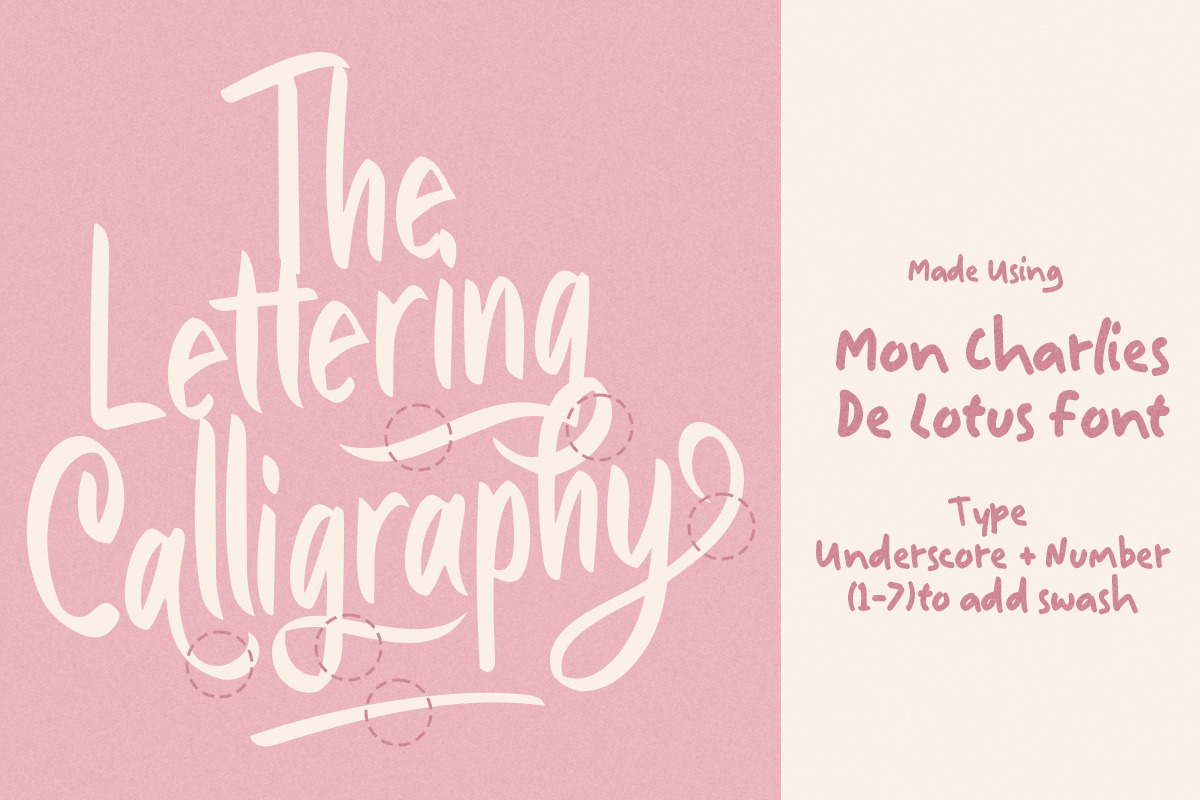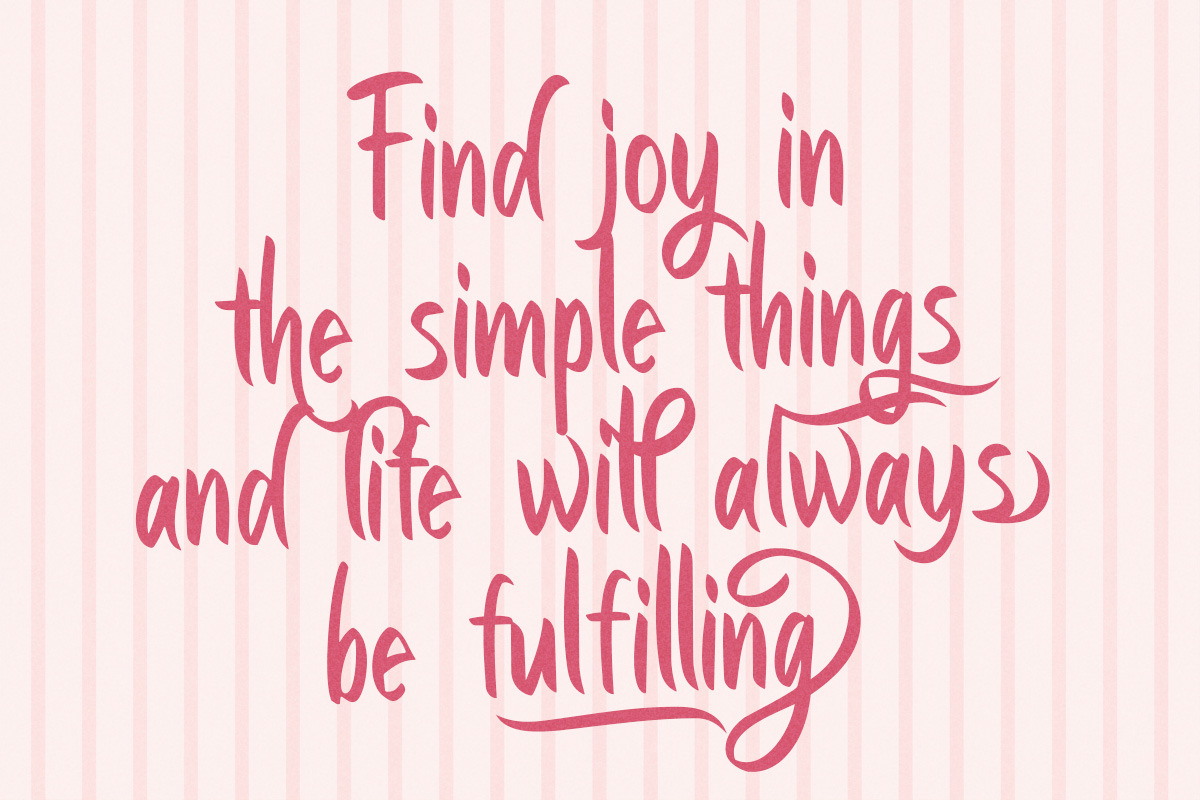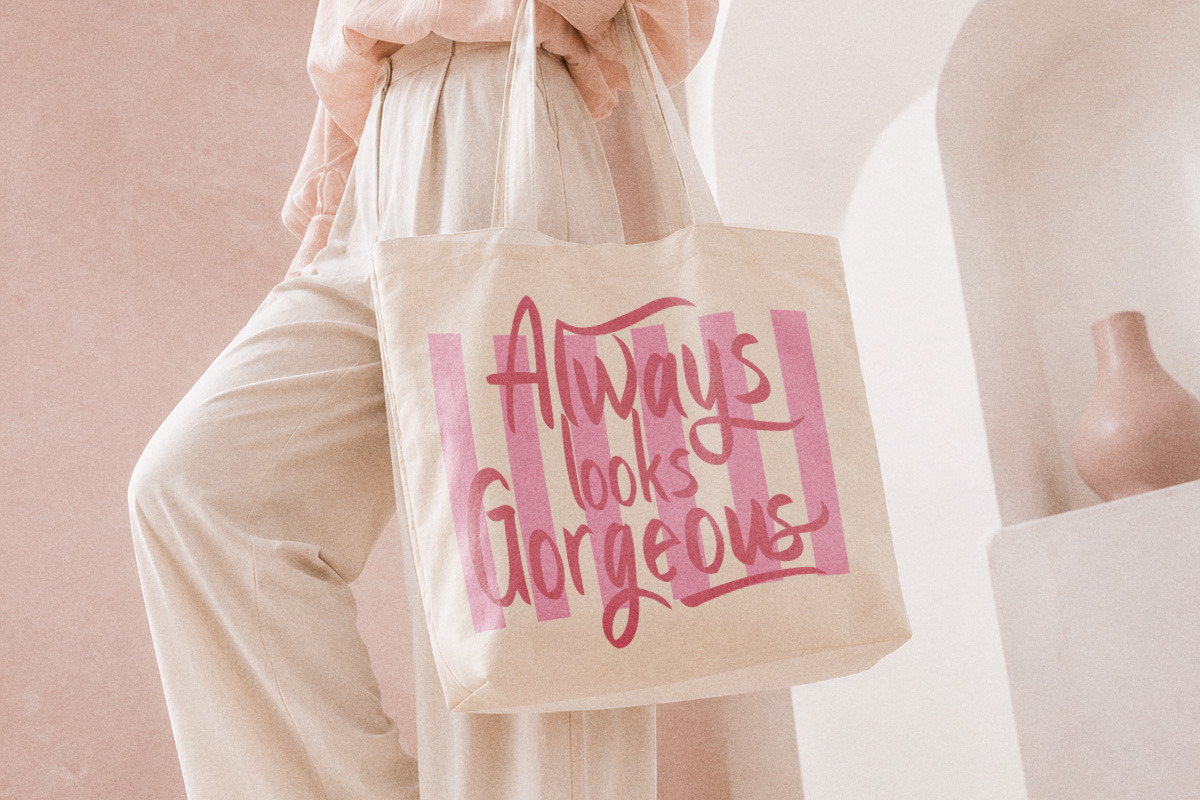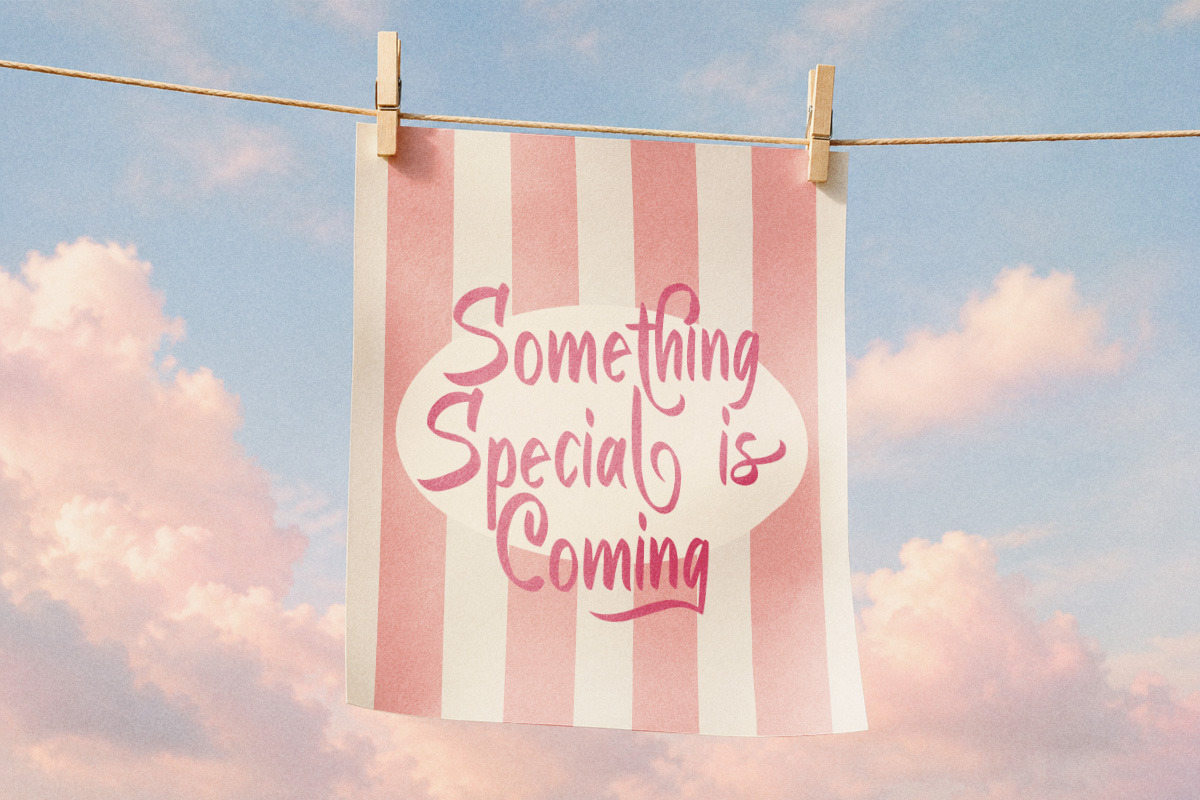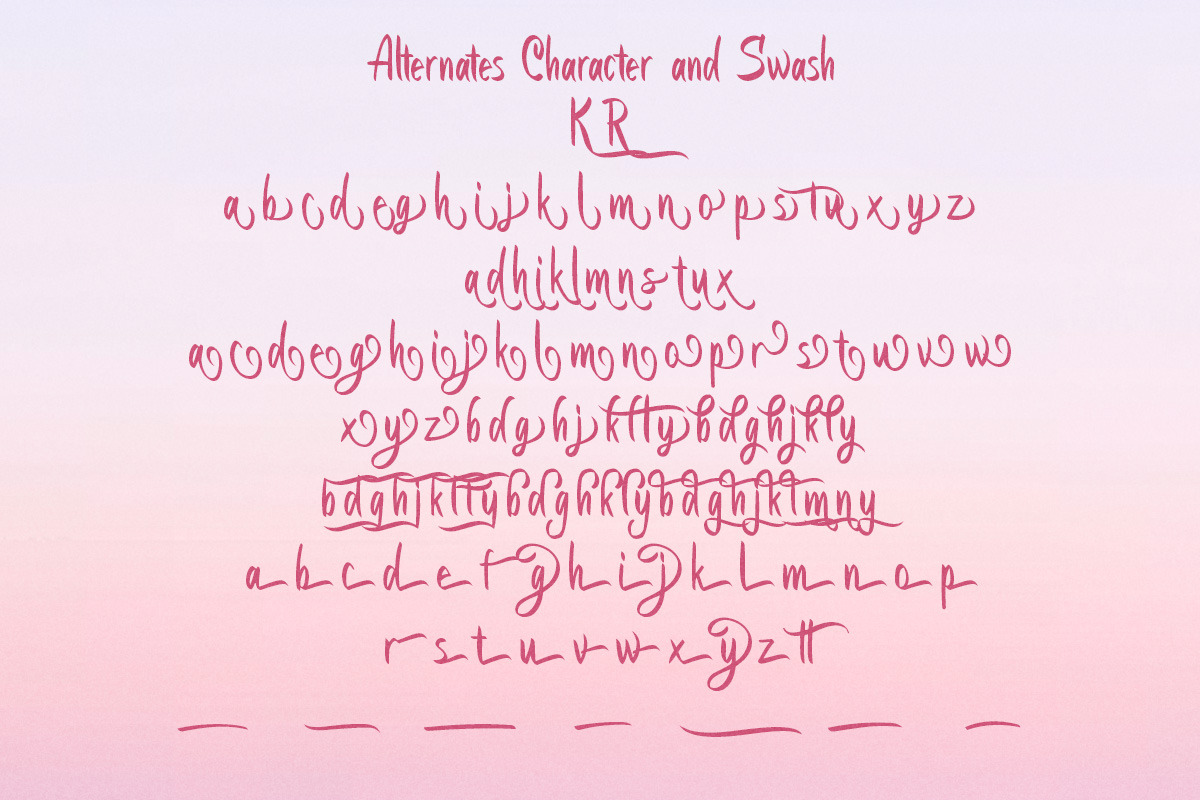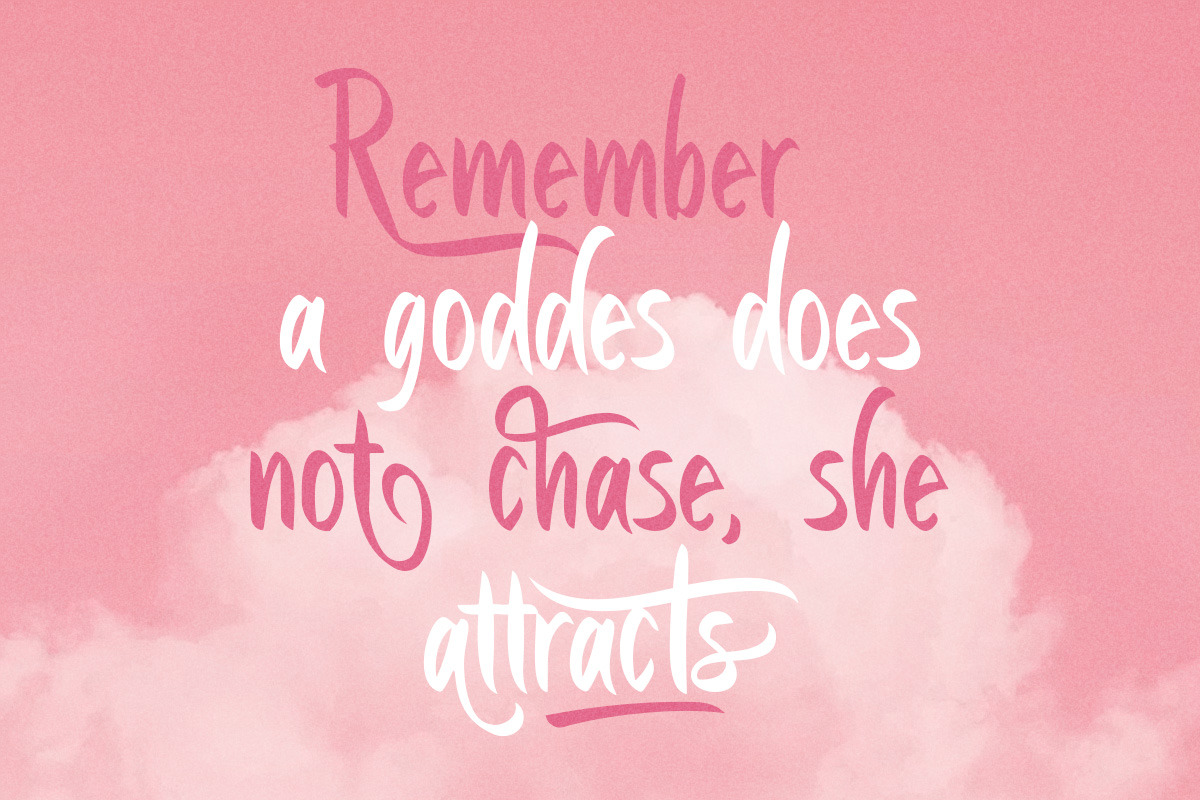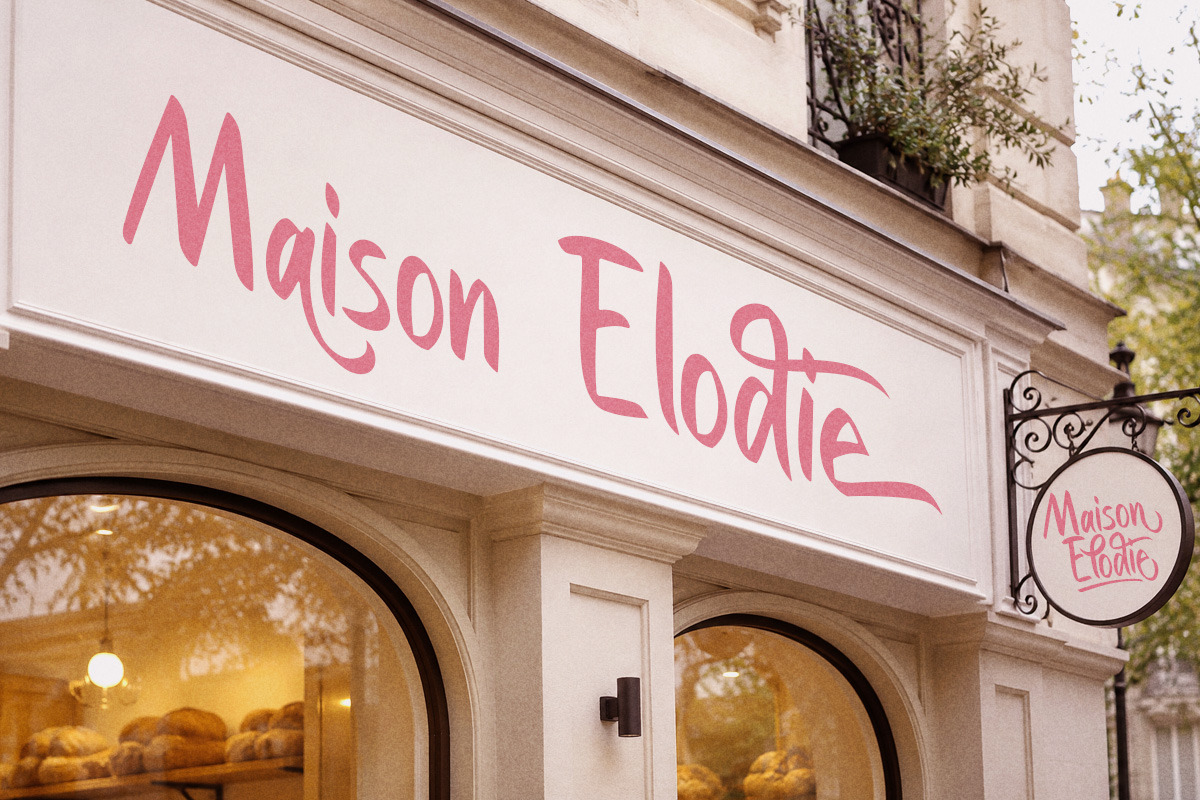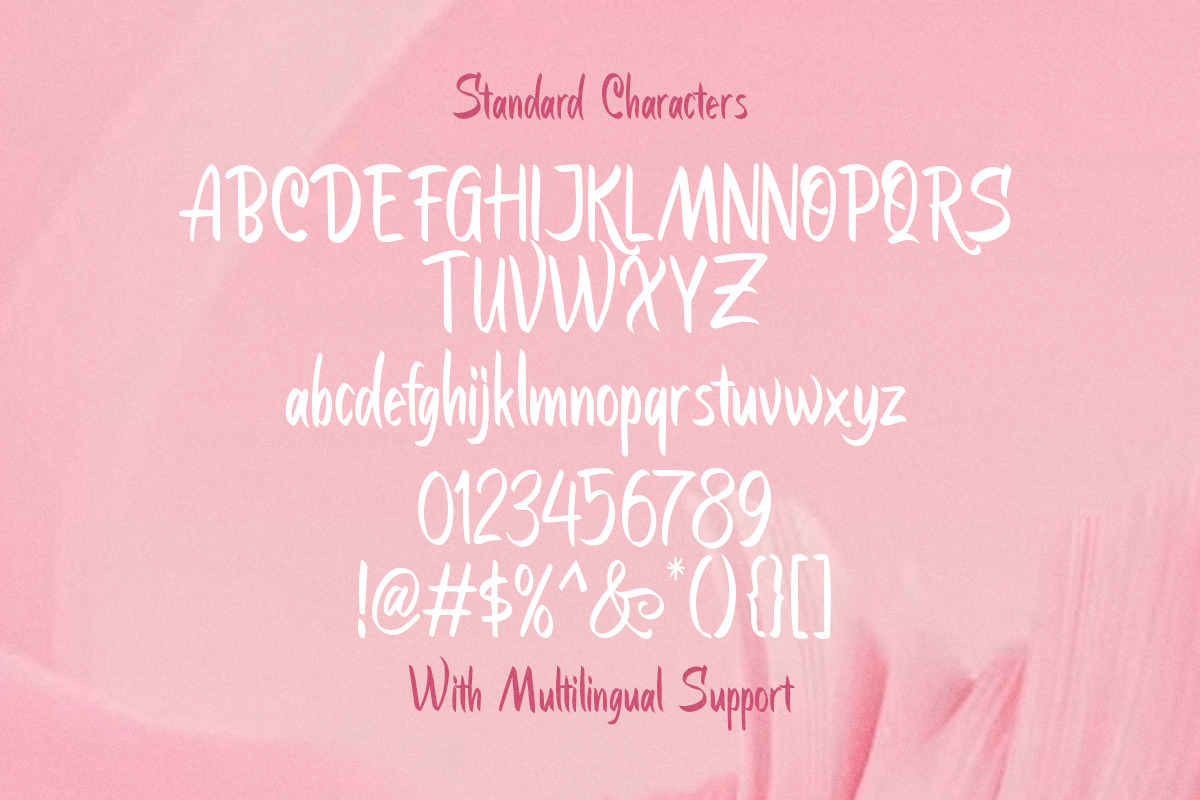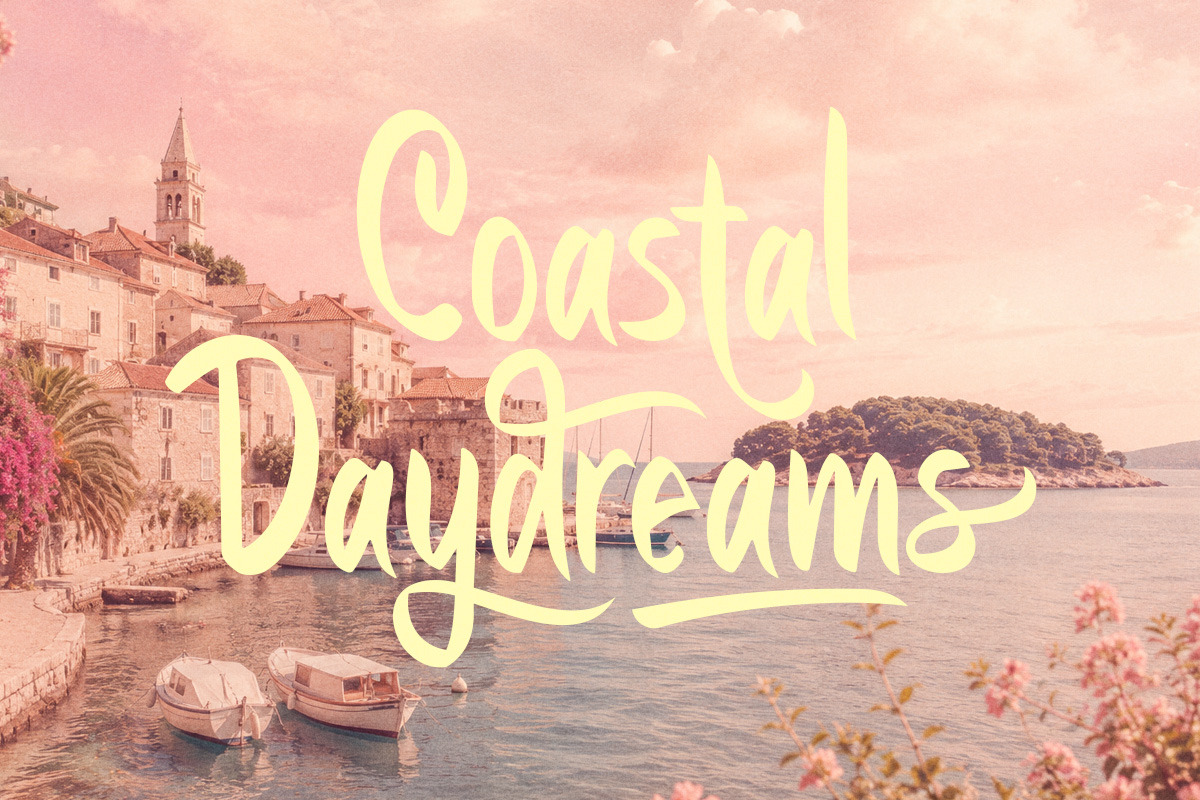
Mon Lotus De Charles Script
Mon Lotus De Charles flows with a charming handwritten rhythm, combining elongated strokes, expressive curves, and playful swashes into a feminine script full of character. Its organic letterforms give each word a relaxed, artistic quality, while the elegant flourishes add a romantic touch.
Uppercase & lowercase
Numbers and punctuation
Alternates & Ligatures